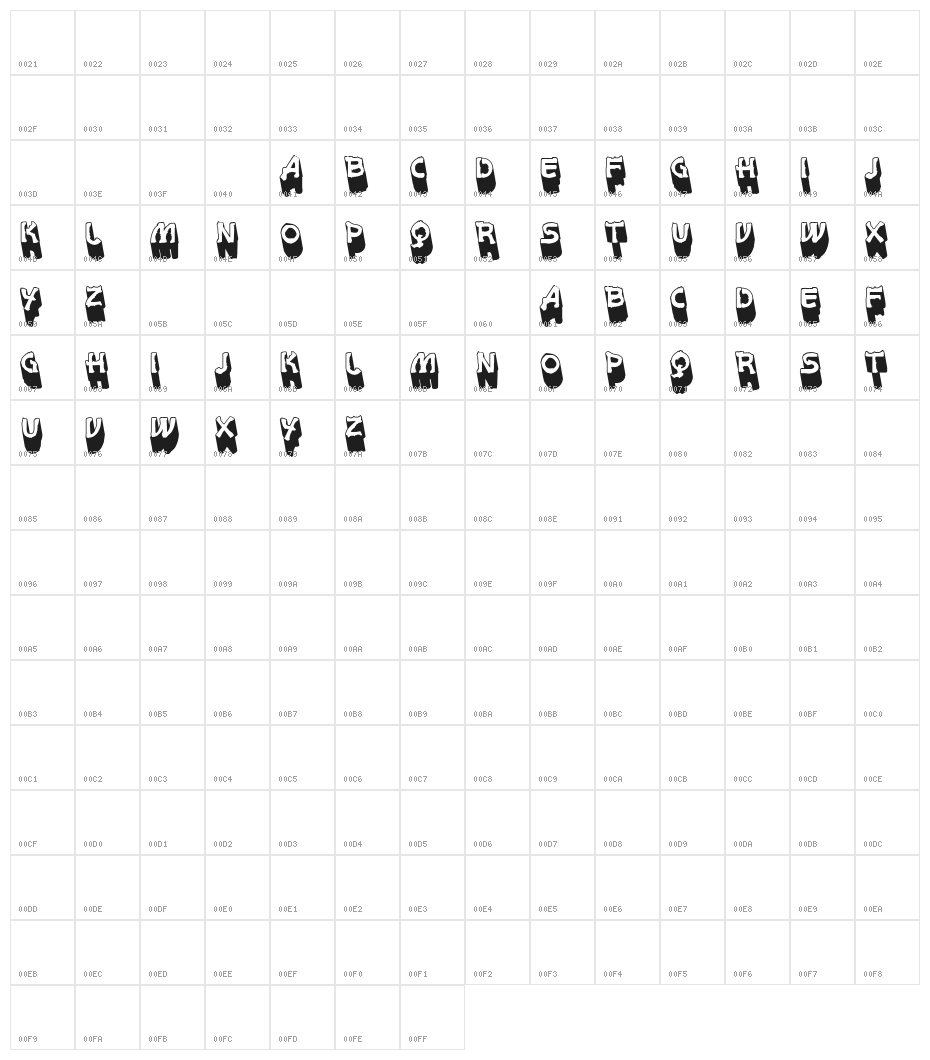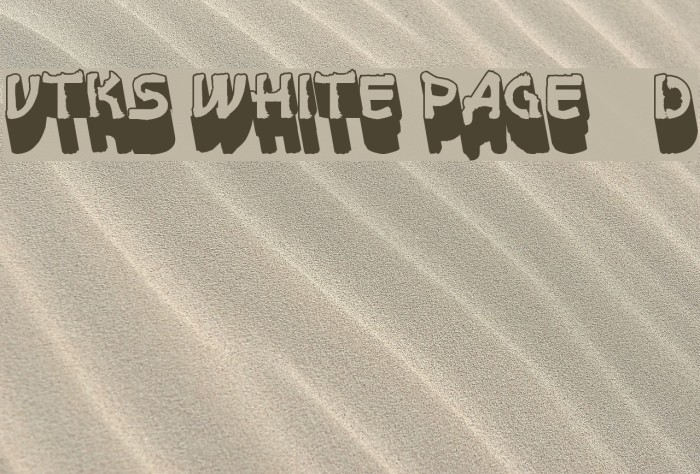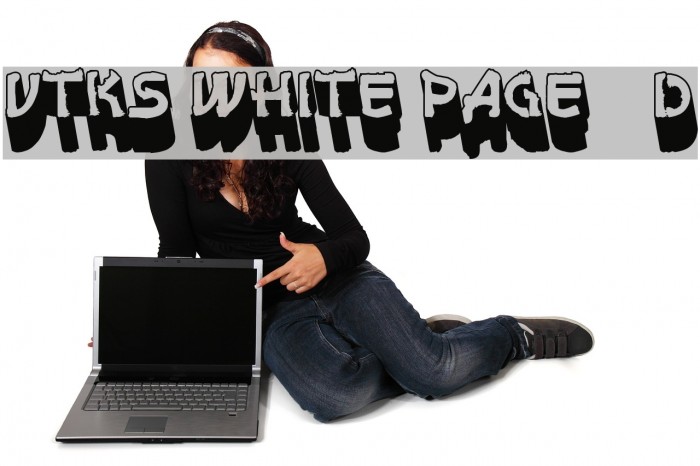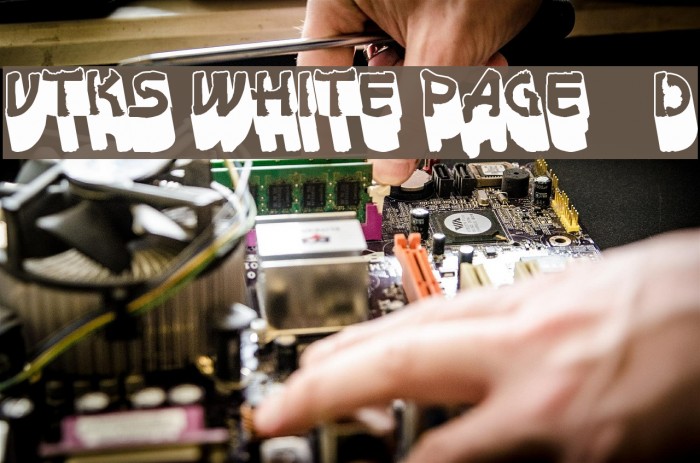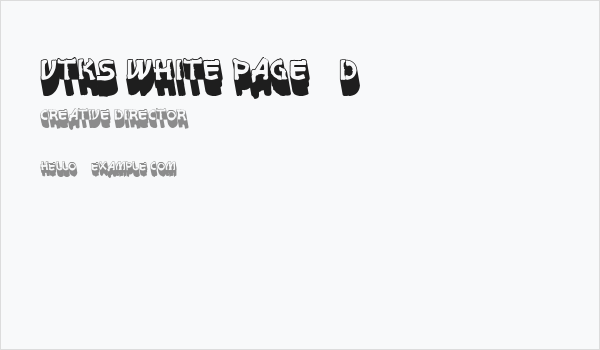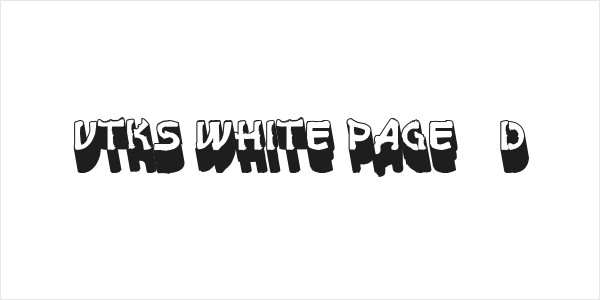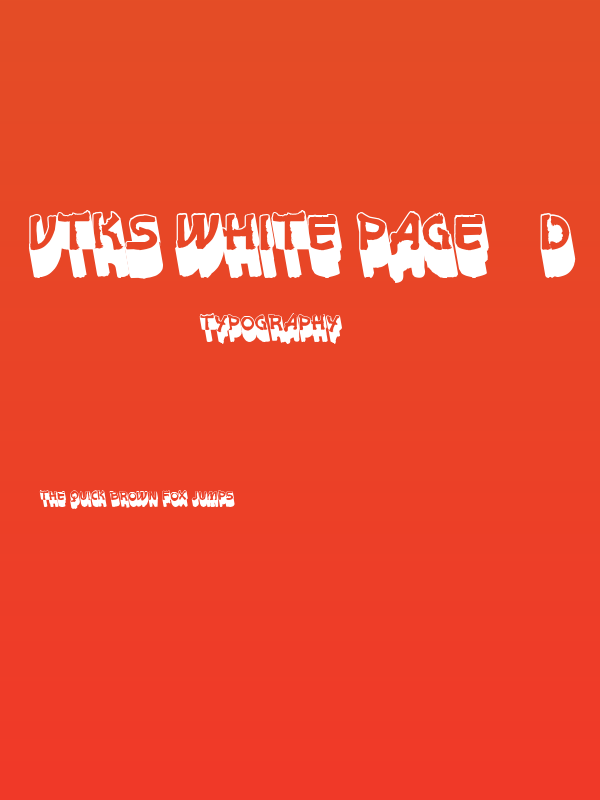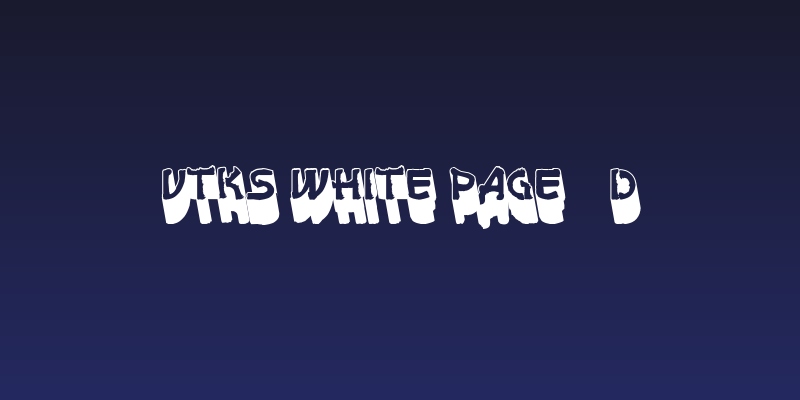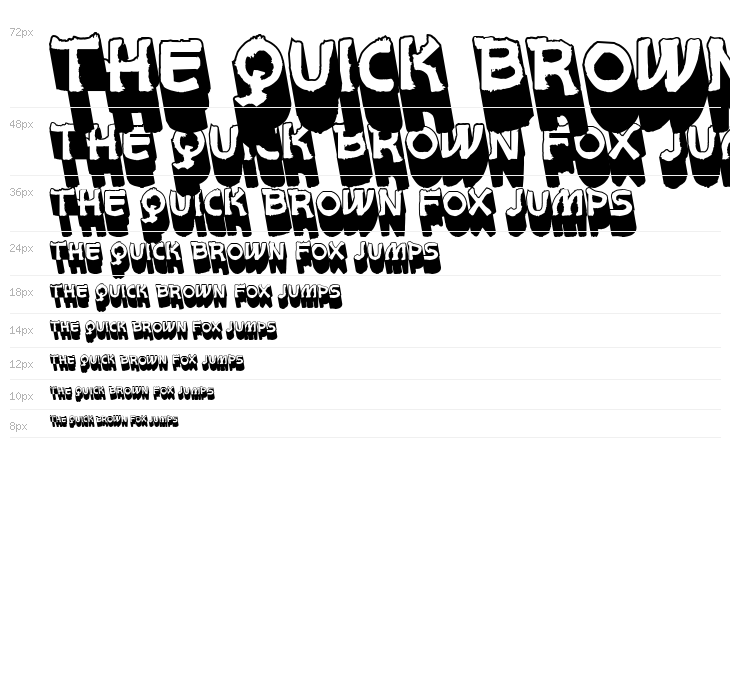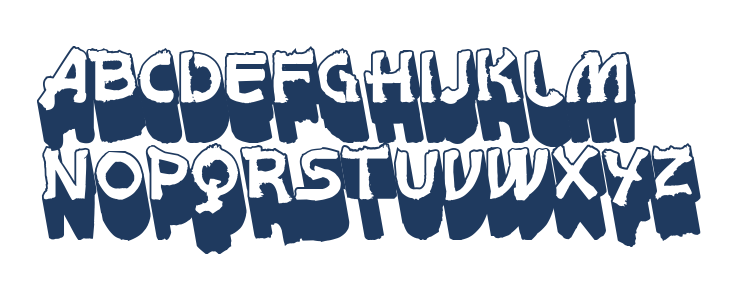
vtks white page 3d Font
vtks white page 3d Description
This font features a bold, 3D shadow effect that gives it a striking and dramatic appearance. The characters have a rough, textured edge that adds a sense of ruggedness and dynamism. The uppercase letters are prominent and eye-catching, making them ideal for impactful headlines or titles. The shadow effect creates a sense of depth, making the text appear to pop off the page. This font is particularly suited for creative projects that require a bold statement, such as posters, flyers, or graphic design elements. Its unique style can add a playful yet edgy touch to any design.